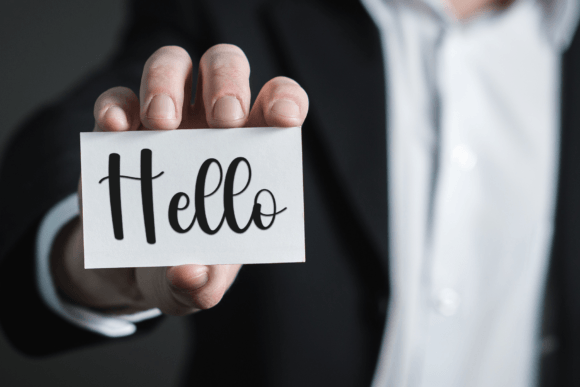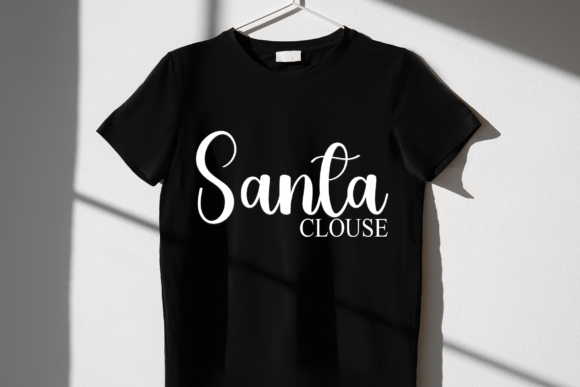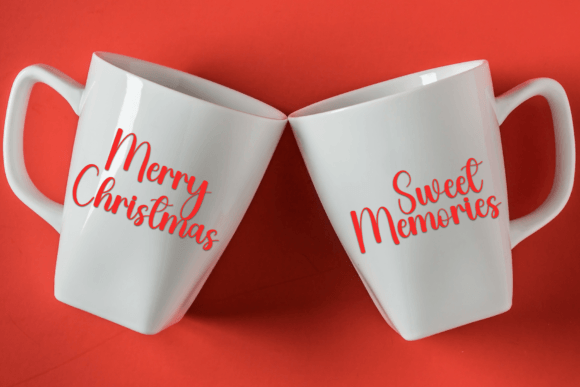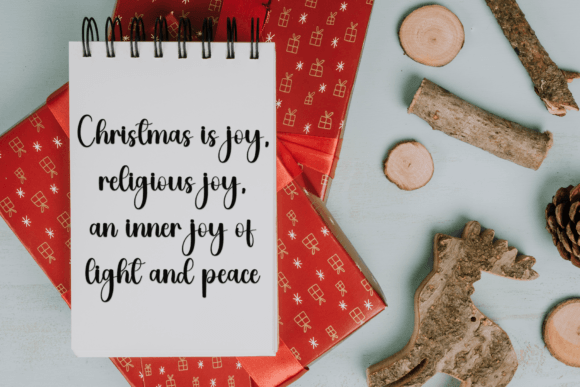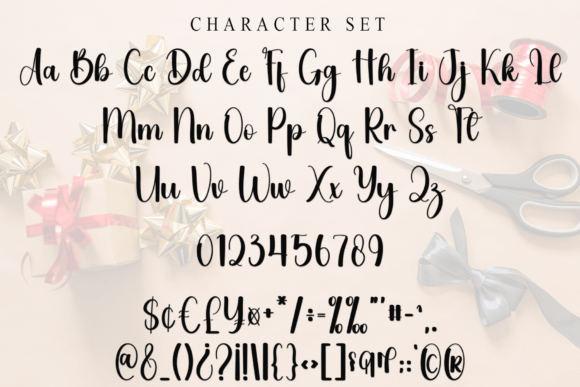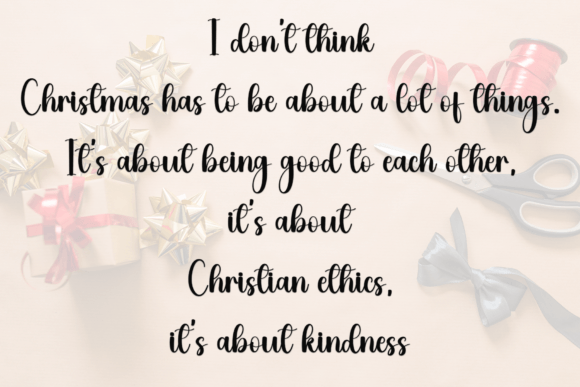
Introduction to Christmas Simple Font
It’s the most wonderful time of the year, and you’re sitting at your desk, surrounded by twinkling lights and festive decorations, trying to decide on the perfect font for your holiday project. You’ve got a design to create, and you want it to be nothing short of magical. As you browse through your font collection, one name keeps popping up in your mind – Christmas Simple Font. This festive and happy typeface has been a go-to choice for designers looking to add a touch of charm to their creations.
With its unique flair and decorative elements, Christmas Simple Font is the perfect design resource for anyone looking to create high-quality projects that exude the spirit of the holiday season. Whether you’re working on a greeting card, a gift label, or a holiday-themed project, this font is sure to bring a cheerful and nostalgic atmosphere to your words.
Key Features of Christmas Simple Font
- Features a simple and elegant design, perfect for adding a touch of festive charm to your designs without overwhelming the layout.
- Perfect for use in a variety of creative projects, from holiday cards and invitations to social media graphics and website headers.
Honest Review: Christmas Simple Font
I recently stumbled upon the Christmas Simple Font, and I must say it’s been a game-changer for my holiday-themed design projects. This font is perfect for anyone looking to add a touch of festive cheer to their creative project.
- ✨ High quality design: The font is crisp and clean, making it ideal for print and digital applications.
- ✨ Versatile: The font is perfect for a wide range of design projects, from invitations to social media graphics.
- ⚠️ Limited font variations: The font only comes in a few different styles, which may limit its versatility for more complex design projects.
- ⚠️ Not suitable for complex typography: The font is best suited for simple, bold typography and may not be the best choice for more intricate designs.
Overall, I’m really impressed with the Christmas Simple Font. It’s a high-quality design resource that’s perfect for adding a touch of festive flair to your creative project. While it may have some limitations, it’s a great addition to any designer’s toolkit.
The Christmas Simple Font is a high-quality design resource that can elevate your creative project with its simple yet elegant style. You can download it for free and use it in various design platforms.
Use the Christmas Simple Font in combination with other design elements, such as images and graphics, to create a cohesive and visually appealing design. Experiment with different font sizes and styles to add depth and interest to your design. You can also use the font in various colors to match your brand or design scheme.
The Christmas Simple Font is perfect for creating holiday-themed designs, such as Christmas cards, invitations, and gift tags. You can also use it for creating social media posts, blog headers, and other digital content. The font’s simple yet elegant style makes it versatile and suitable for various design projects.